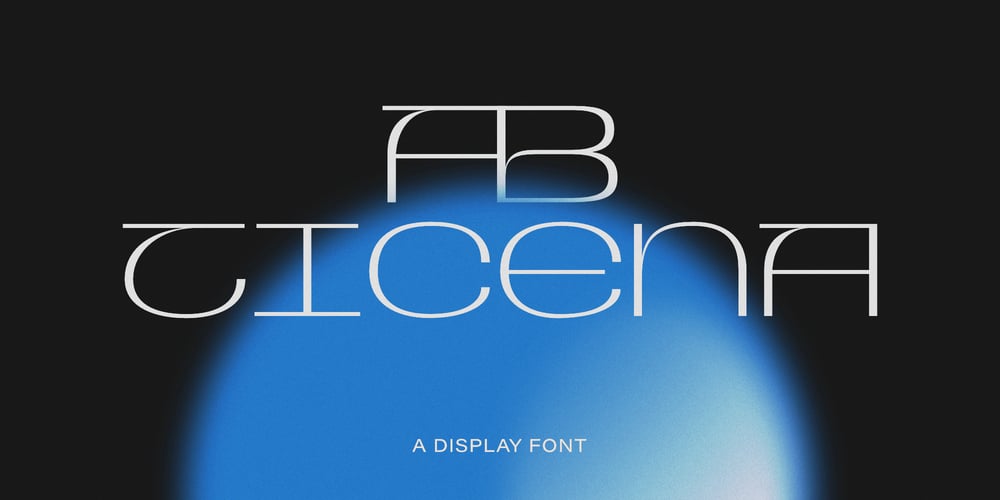
AB Ticena Font Family was designed by Andrés Briganti and published by Andres Briganti. AB Ticena contains 1 styles and family package options. Elegant and idiosyncratic, AB Ticena is a display and extended typeface inspired by the ancient forms of Lombardic capitals.The sometimes quirky and capricious letterforms take their inspiration from medieval forms found in inscriptions and manuscripts where latin Roman capitals were taken to new stylistic and even extreme expressions. The ultra-wide horizontal proportions and its modulated, humanistic strokes gives it a more refined and contemporary edge.AB Ticena works best for logotypes, short and striking headlines, and editorial purposes.A set of ligatures and stylistic alternates is also available for selected characters and pairings.